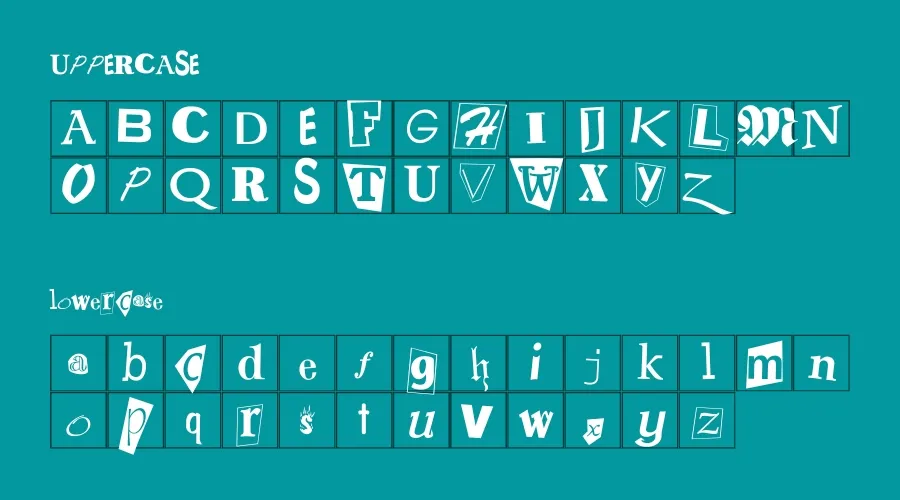
About Ransom Note Font
The Ransom Note Font was developed by Divide by Zero and under the category of the decorative typeface family. It accepts the name of this style from the impression of a stereotypical ransom letter. It has a stylish texture look with unique structures.
The copy-and-paste function of this typeface will help you to make your project easy and modern. You can also utilize its online generator tool for converting all your simple textures into stylish and new modern shapes.